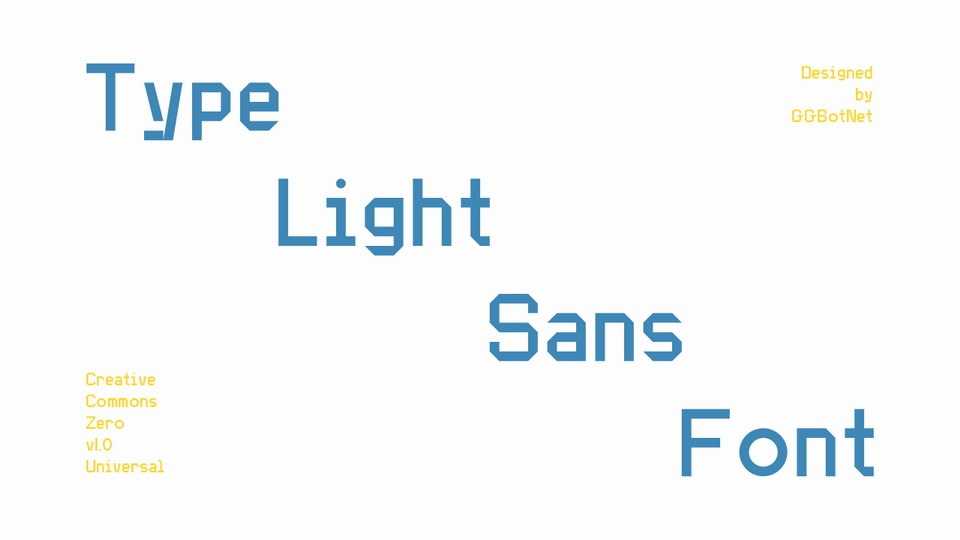
Download Type Light Sans font, a modern geometric sans serif typeface defined by its sharp forms and strong industrial aesthetic with clean lines and precise angles.